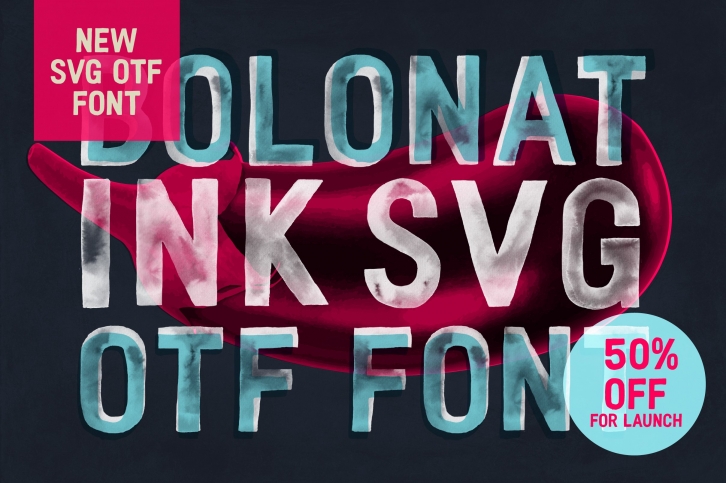
NEW! Bolonat Ink SVG OTF Version FONT Download
BOLONAT INK SVG OTF FONT! Includes Multiple Diacritics and Punctuation.
Based on the original hand drawn glyphs I did for a restaurant project in NYC, this new version has been completely re-drawn and painted in ink, scanned, and edited before being imported into a font program to create the SVG OTF file.
Pre-kerned and spaced, each glyph is user ready with a few characters needing kerning depending on end user preference. Read below for tips on how to use the SVG file.
THE BOLONAT FAMILY:
INK - An SVG re-worked version of the original watercolor glyphs with Extended Diacritics and Punctuation. (Included)
USING TRANSPARENCY & EFFECTS
Play with transparencies and effects to get the most out of Bolonat Ink. Here are a few tips:
• The file is in “black” in mode - perfect for darker colors. Black Ink mode looks best when effects such as Multiply are used. This way it will give the effect of water color ink on any substrate.
• “Invert Colors” so the Black Ink mode changes to “White Ink” mode. This version works best when “Screen” effect has been applied. White Ink mode works well with lighter or brighter colors.